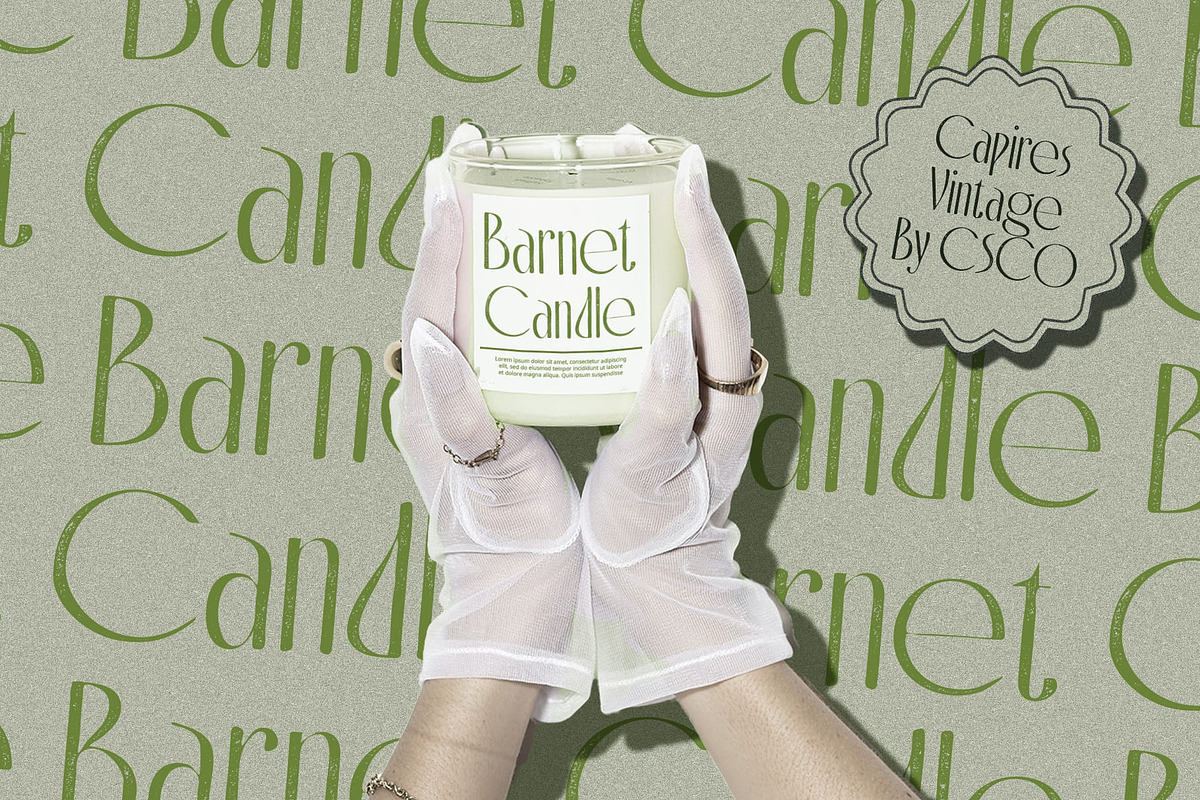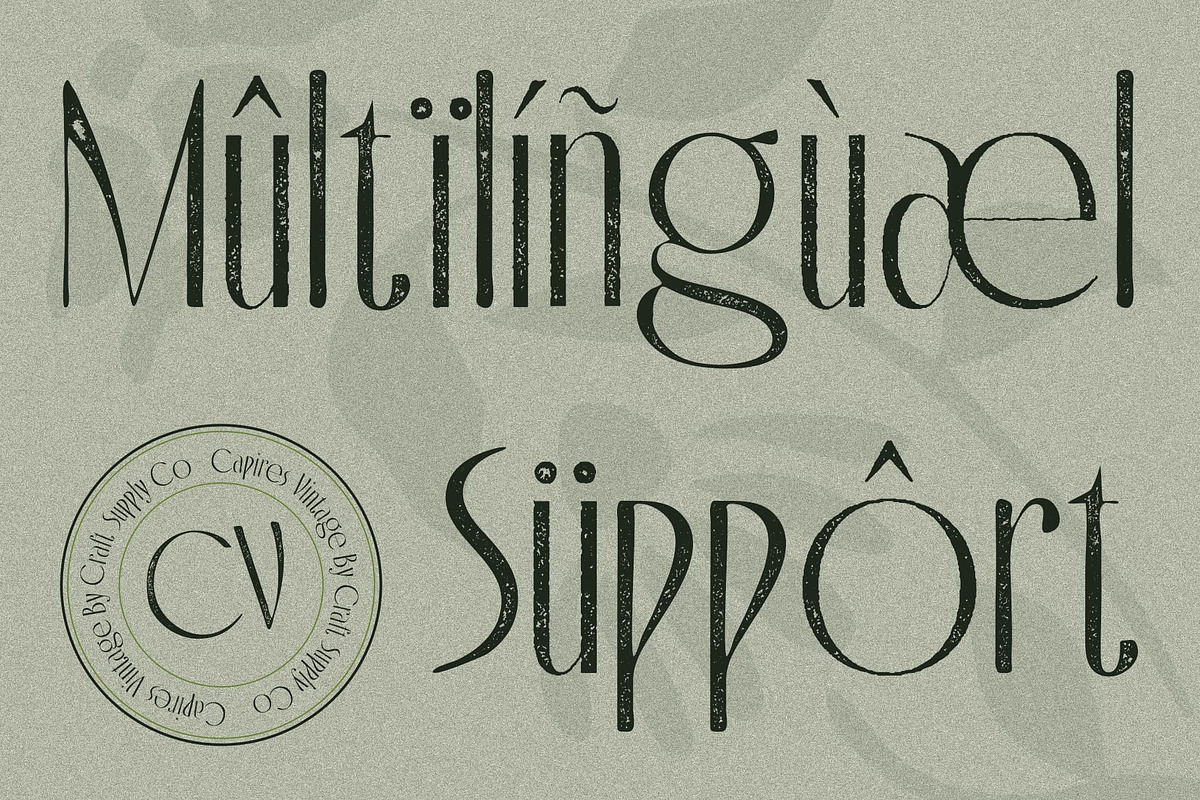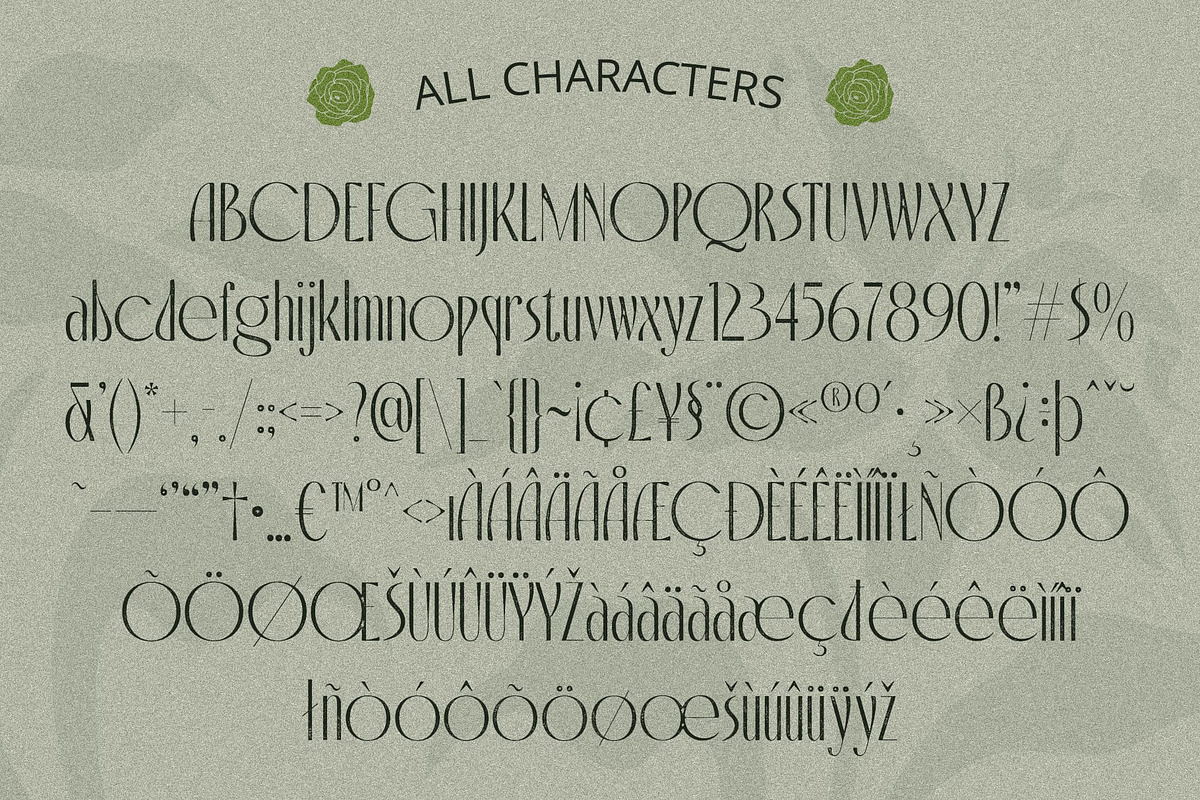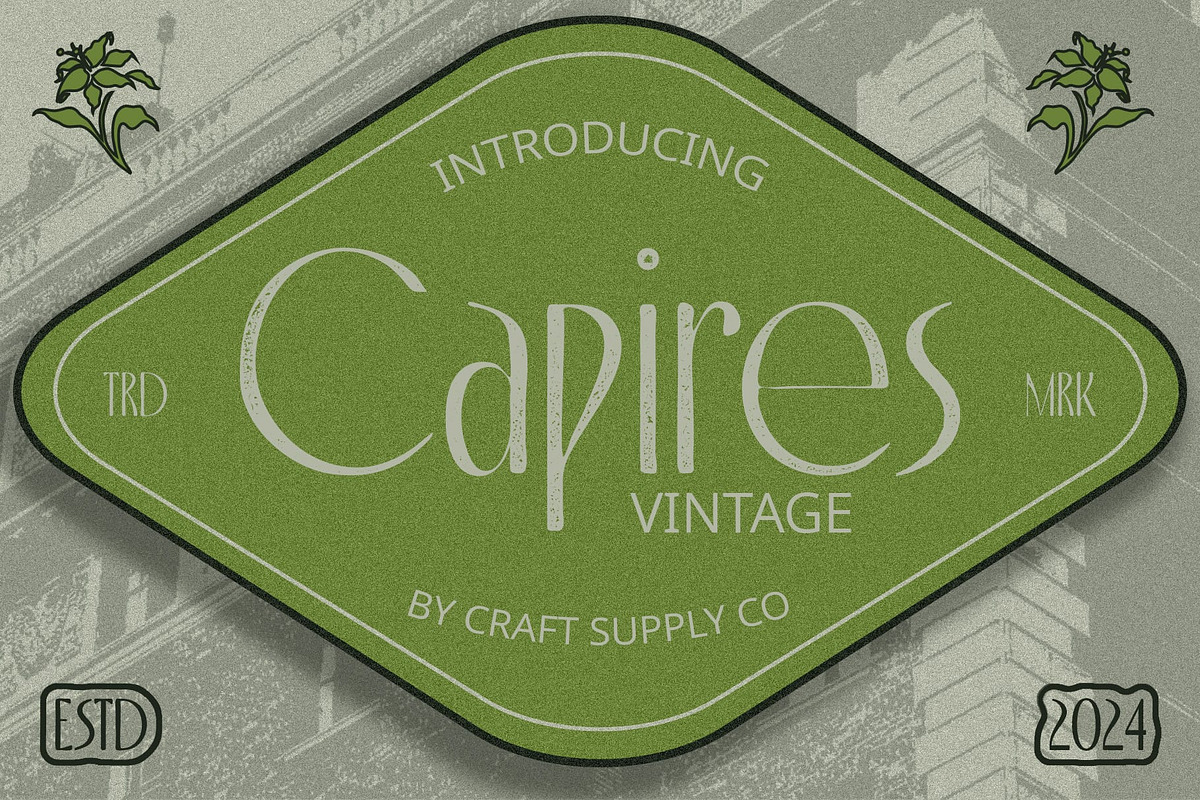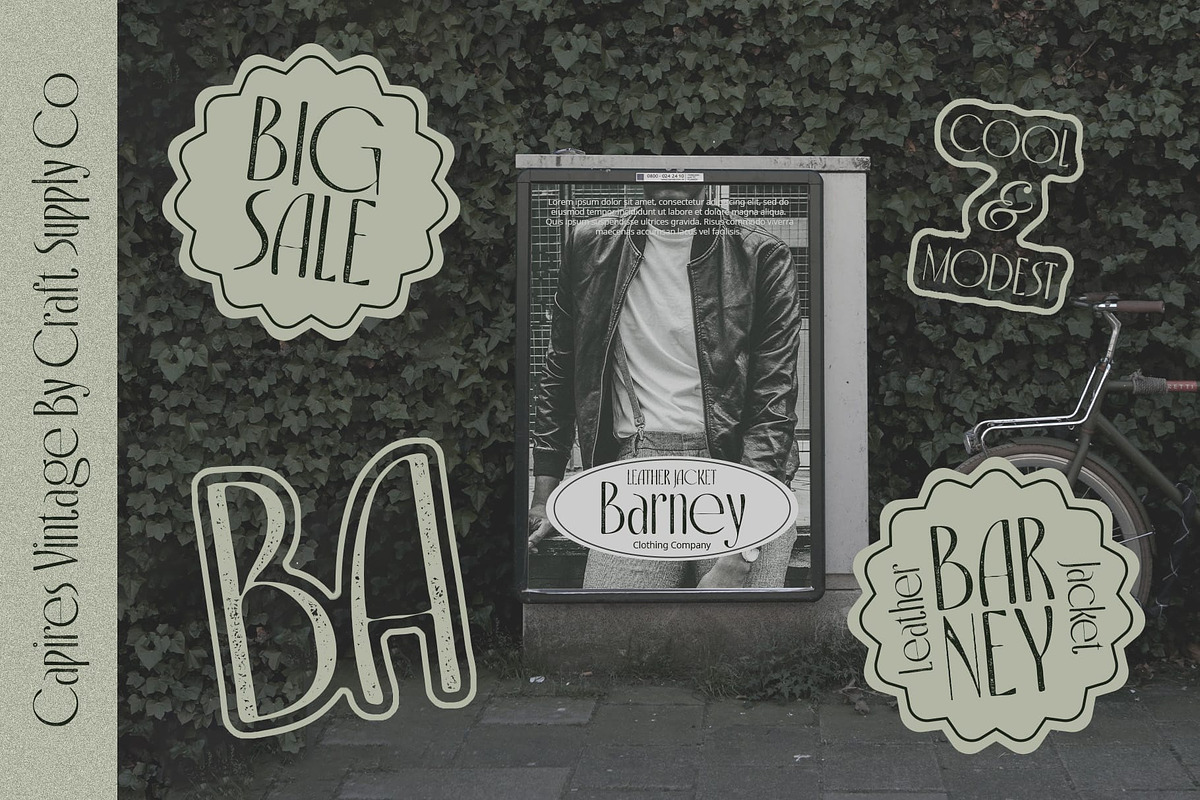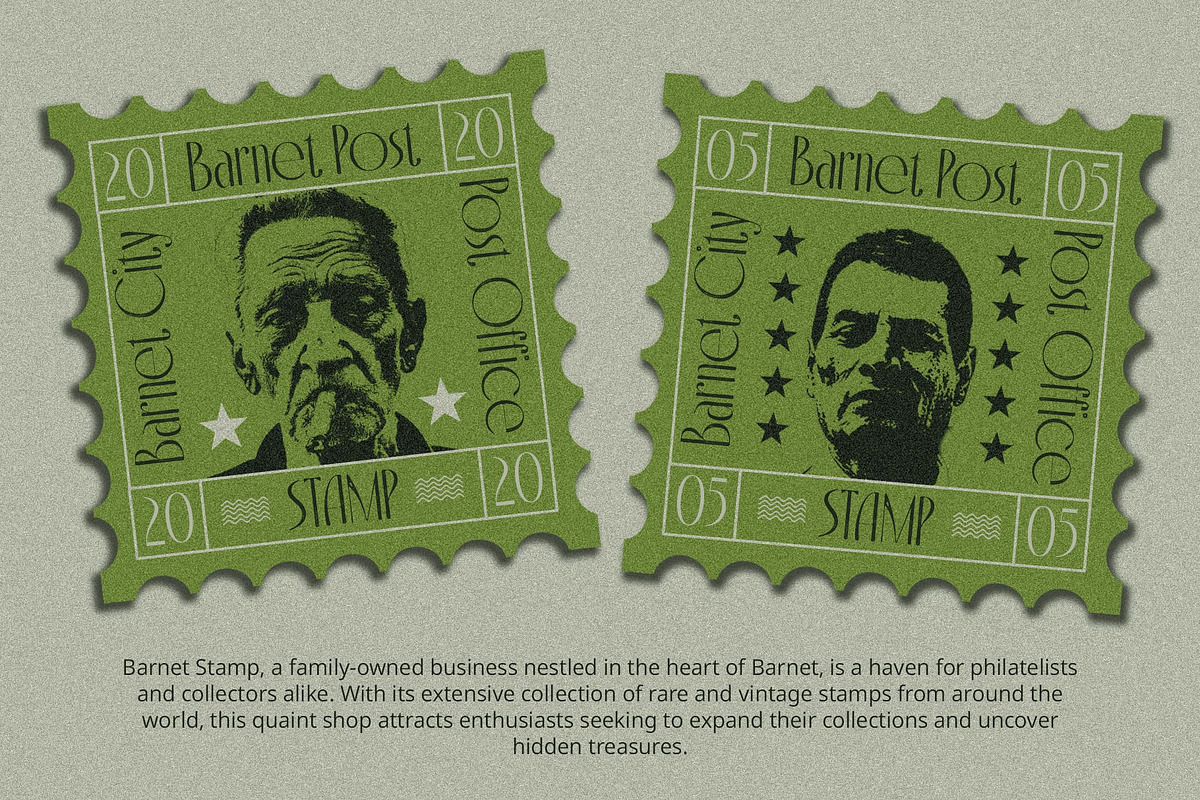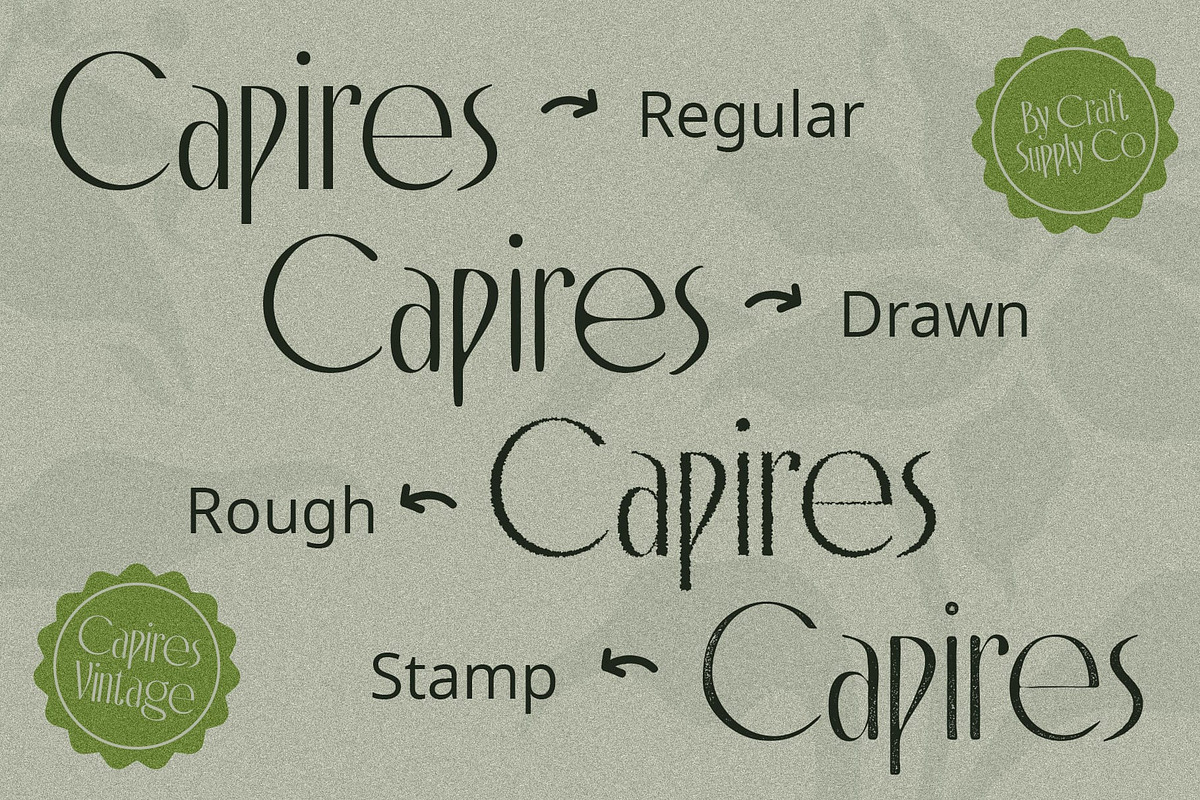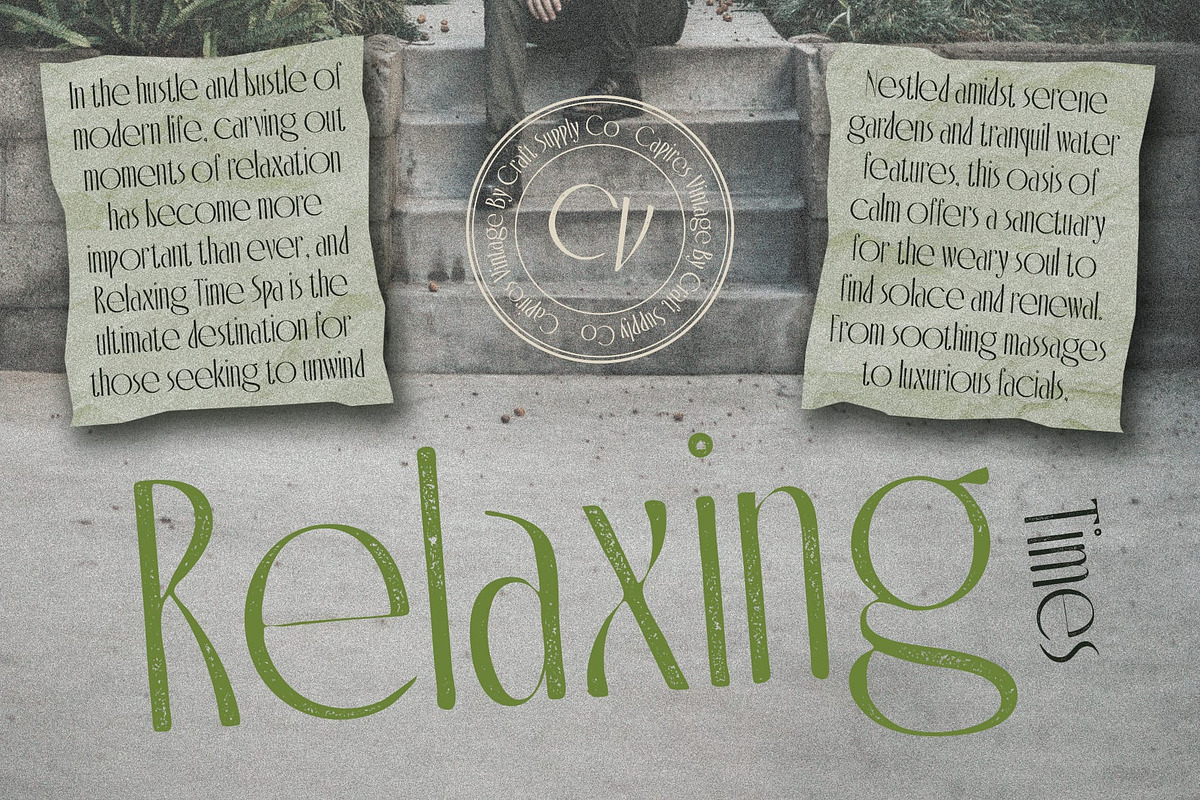
Capires Vintage
Capires Vintage: Embracing Aesthetic Flow
Art Nouveau Inspiration Drawing inspiration from the Art Nouveau movement, Capires Vintage embodies a graceful flow and intricate detailing reminiscent of the era’s ornate style.
Vintage Stamp Roughness Infused with a vintage charm, This font features rough stamp effects that add texture and character to each letterform, evoking a sense of nostalgia and authenticity display.
Aesthetic Flow in Display Typography This font excels in display typography with its aesthetic flow, making it an ideal choice for projects requiring elegance and visual appeal. Its fluid design captures attention effortlessly.
Versatile Vintage Appeal With its Art Nouveau-inspired aesthetic and vintage stamp roughness, This font offers versatility in application, enhancing a wide range of projects such as posters, packaging, and branding materials.
Timeless Elegance This font seamlessly blends aesthetic flow with vintage charm, paying homage to the Art Nouveau movement while offering a versatile solution for modern design needs. Dive into the allure of Capires Vintage and infuse your projects with timeless elegance and artistic flair.
- Capires Regular
- Capires Drawn
- Capires Rough
- Capires Stamp